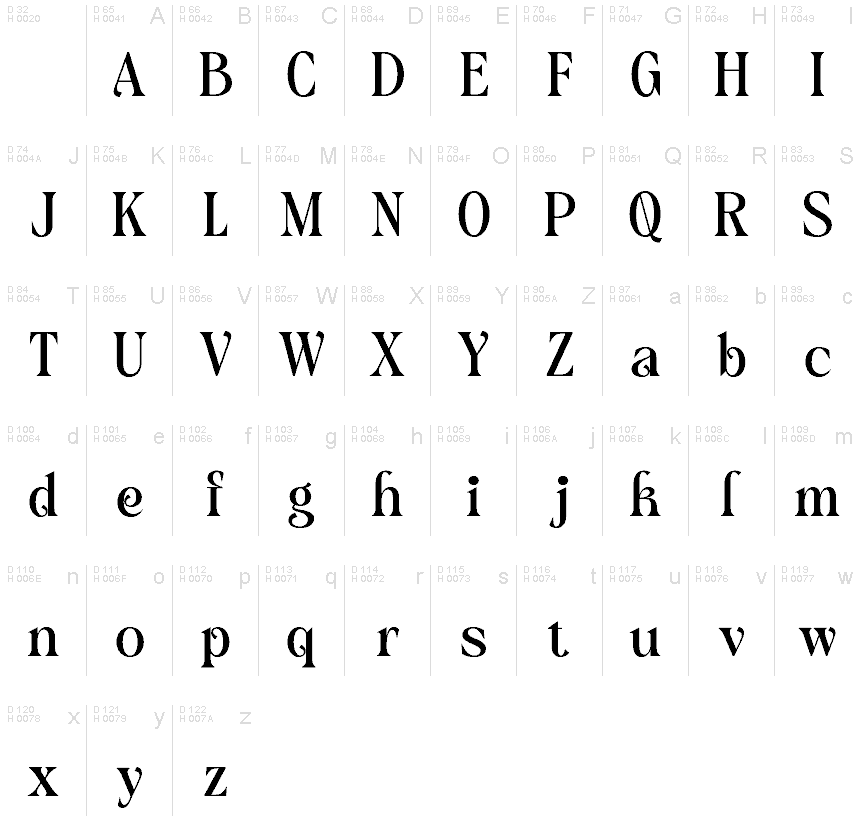
CS Hayes Regular Demo
CS Hayes font by Craft Supply Co. is an elegant decorative serif font inspired by the classic and sophisticated aesthetics of the gentler years of typography. It features thin letters, proper transitions, and naturally curved terminals with a geometric element cameo that generally add up to a formal atmosphere.
Due to its decorative flair, this serif typeface can be used in invitations, wedding designs, greeting cards, posters and magazine covers. Other possible use cases are product packaging branding projects, logos & logotypes or web headers.
CS Hayes Demo